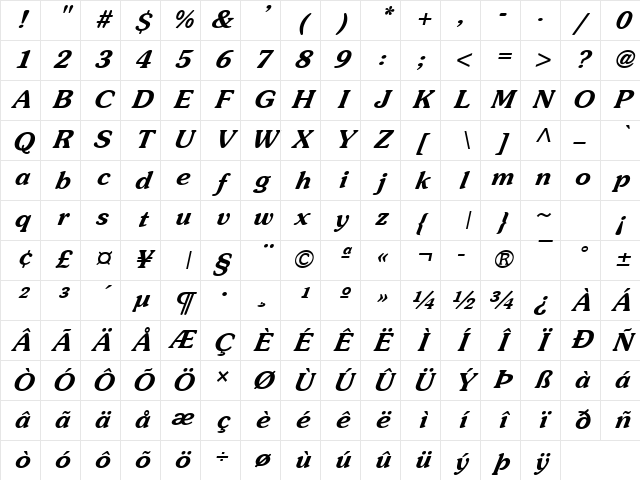
Sojourn is a composed and adaptable typeface that performs quietly and consistently across a wide range of design contexts. The slanted form adds forward momentum and visual energy.
Pro Tip: Use Sojourn for emphasis, pull quotes, and subheadings where its slanted energy can add rhythm to the layout.